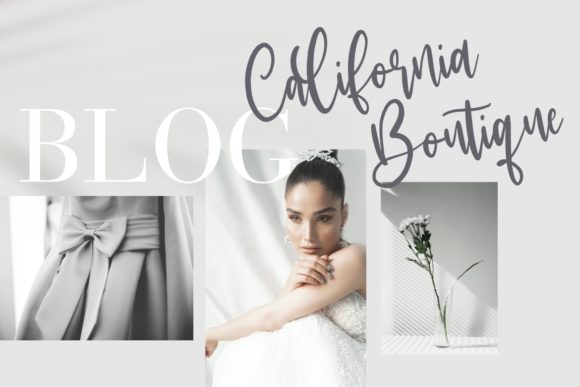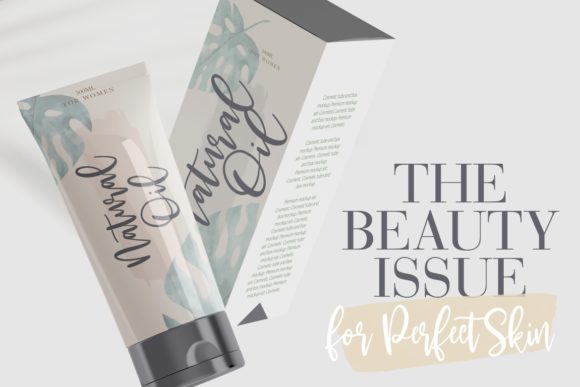
About Mackyloo Font
Mackyloo is modern calligraphy font that looks elegant, sophisticated and classy.
Mackyloo is perfect for branding projects, logo, wedding designs, social media posts, advertisements, product packaging, product designs, label, photography, watermark, invitation, stationery and any projects that need a handwriting touch.